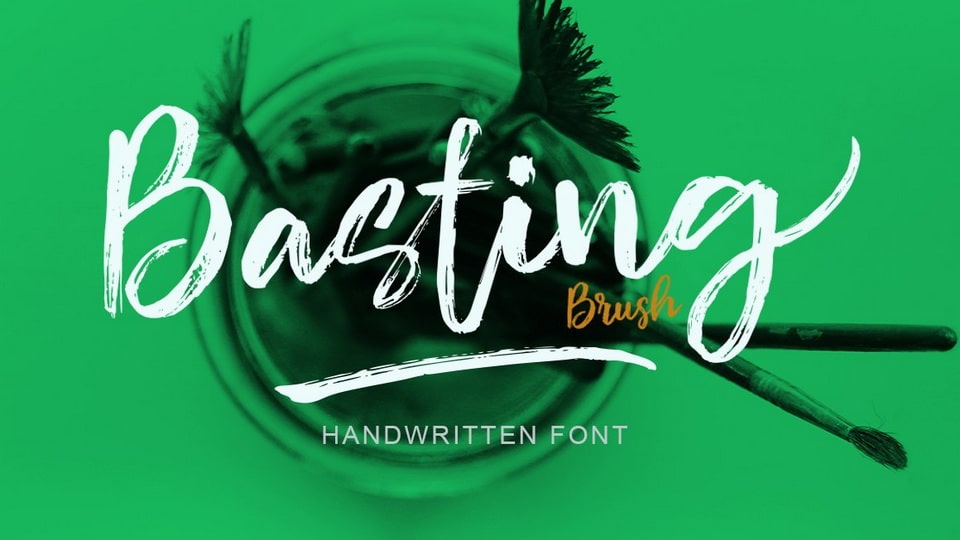
Download Basting Brush font, a casual handwritten script, designed with a detailed brush stroke texture. It can be added to various purposes such as titles, signature, letterhead, labels, newsletters, posters, logos, invitations, badges, and so much more!